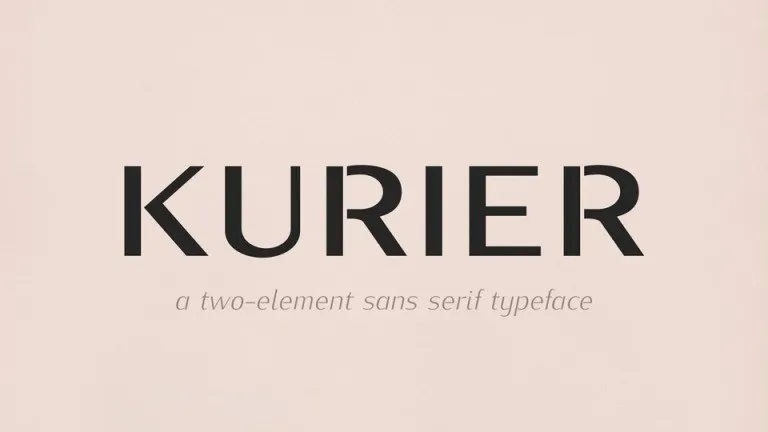
Kurier Font Family
Kurier Font
Kurier Font is a sans-serif font family with a solid clean, rough, trace, and outline style with a caps alphabet, which has a strong and unique shape, which makes it perfect for any design. The font with a simple, retro, and vintage character set.
The font works great in any branding, logos, magazines, films. poster, and etc. allowed for full range to a whole host of applications. The outline fonts have real modern feel to any project.
Kurier Sans Serif Font Family